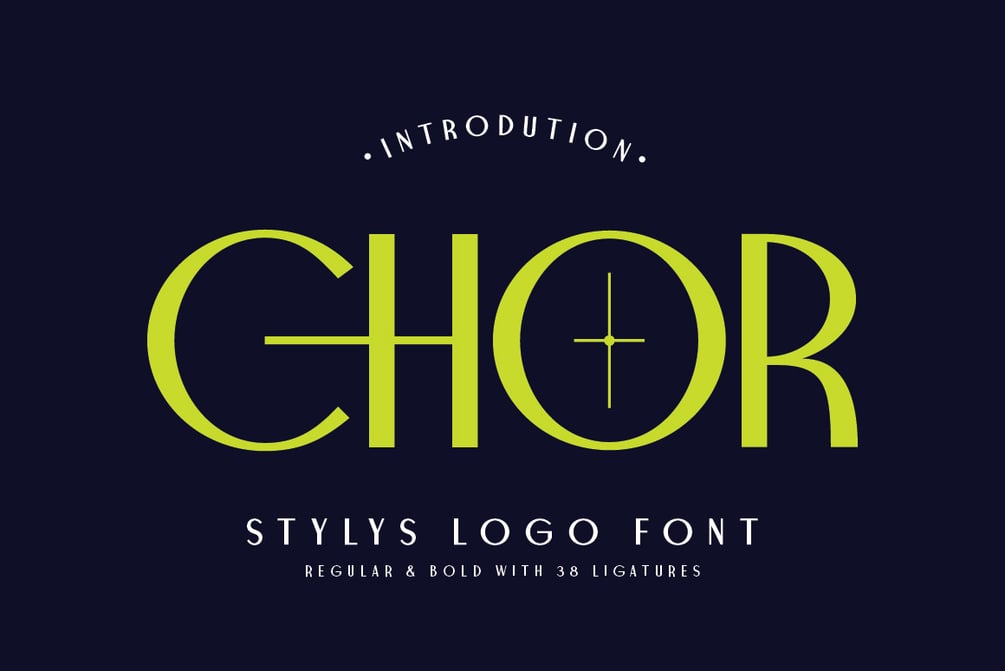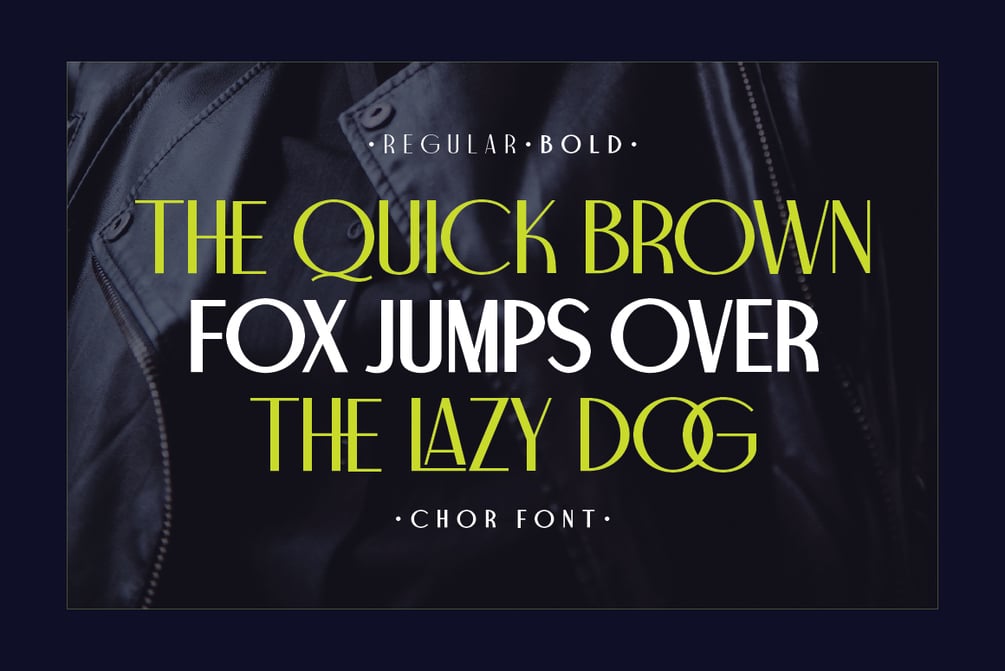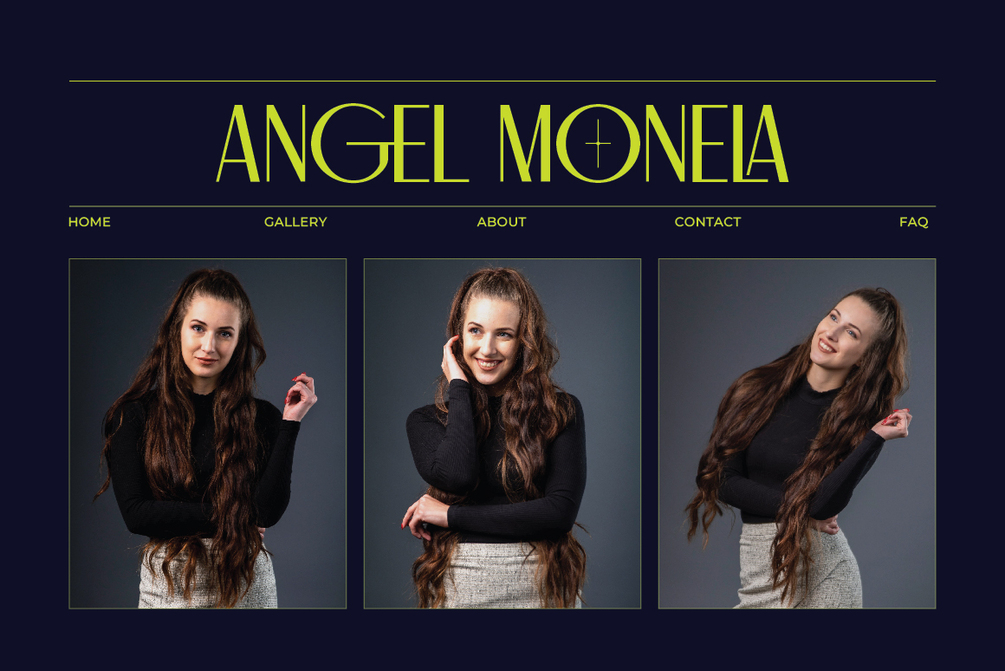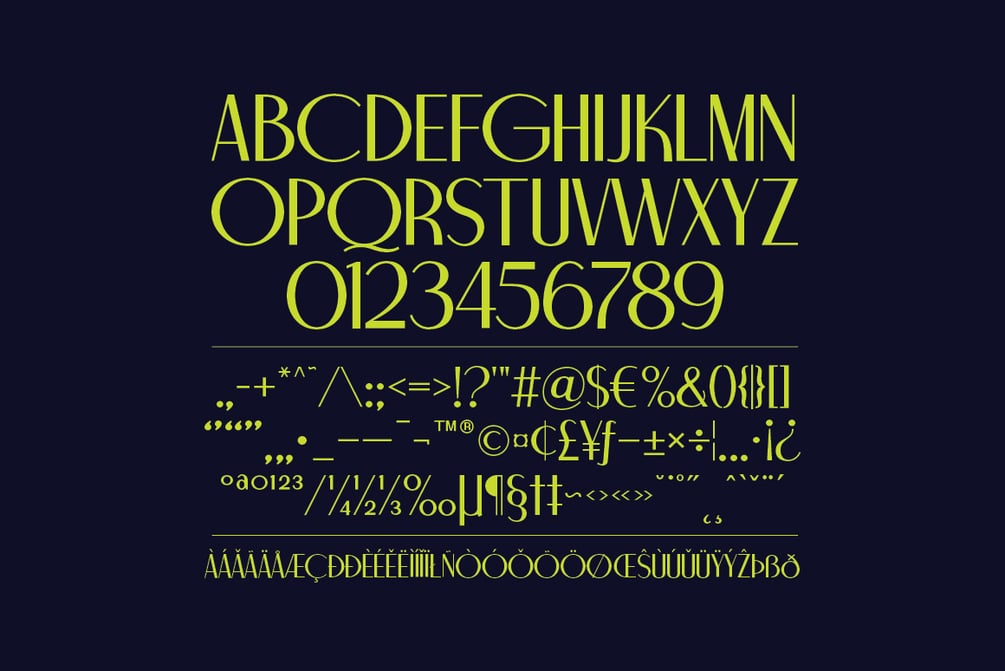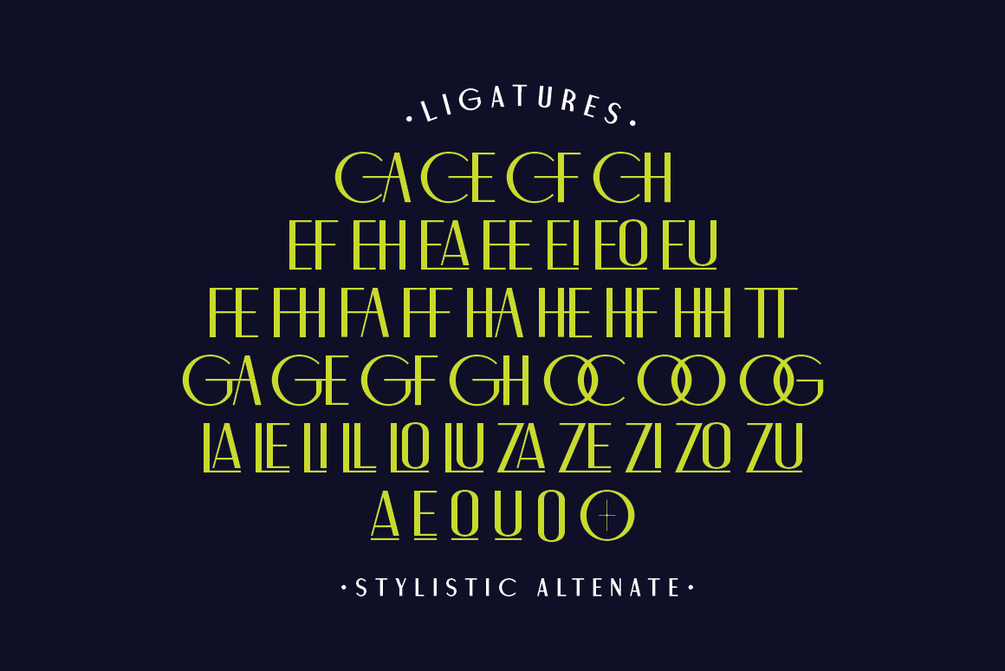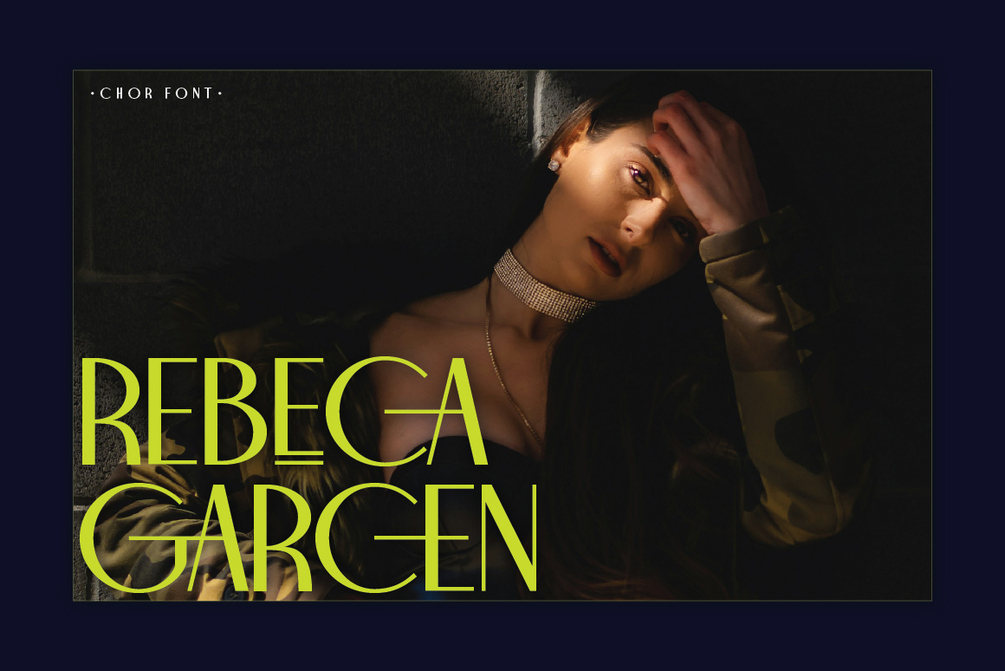
Chor Font
Chor is a refined sans-serif font that blends minimalist geometry with subtle elegance. Its tall, narrow shapes and balanced spacing create a calm visual rhythm, making it perfect for branding, fashion editorials, and modern luxury design. Featuring 38 stylish ligatures and underlined vowels (A, E, O, U), Chor delivers both function and flair for creatives who want a distinctive look.